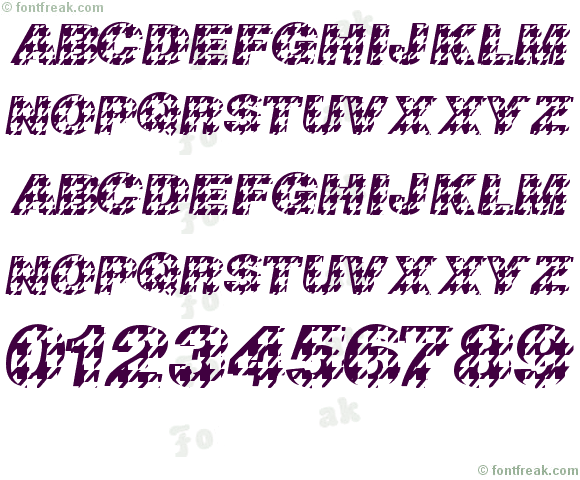
Hounds
About Hounds
The Hounds font, created by Xerographer Fonts in 2012, offers a distinctive display typeface that seamlessly blends playful energy with bold character. This font is characterized by its striking stroke weight and unique decorative elements, featuring a houndstooth pattern that adds a layer of depth and visual interest. The design incorporates moderate contrast and dynamic spacing, making it suitable for a variety of creative applications.
Hounds is ideal for use in wedding invitations, where its quirky yet sophisticated style can add a memorable touch. It also shines in movie posters, providing an eye-catching title that draws attention. Additionally, restaurant menus can benefit from the font's bold presence, helping to highlight special dishes or promotional items effectively. Graphic designers and content creators will find this typeface particularly appealing for branding projects, as it conveys a sense of originality and flair.
Targeting graphic designers, small business owners, and content creators, Hounds is a versatile choice that can elevate any project. The font's unique aesthetic is perfect for those looking to make a statement while retaining a sense of elegance and fun.
What sets Hounds apart is its ability to combine whimsy with sophistication, making it a standout choice for various design contexts. Its distinctive houndstooth pattern and bold letterforms create an engaging visual experience that can capture the essence of a brand or event. For those seeking to enhance their design work, the Hounds font free download offers an excellent opportunity to incorporate this unique typeface into their toolkit. Whether for print or digital media, Hounds is sure to leave a lasting impression.